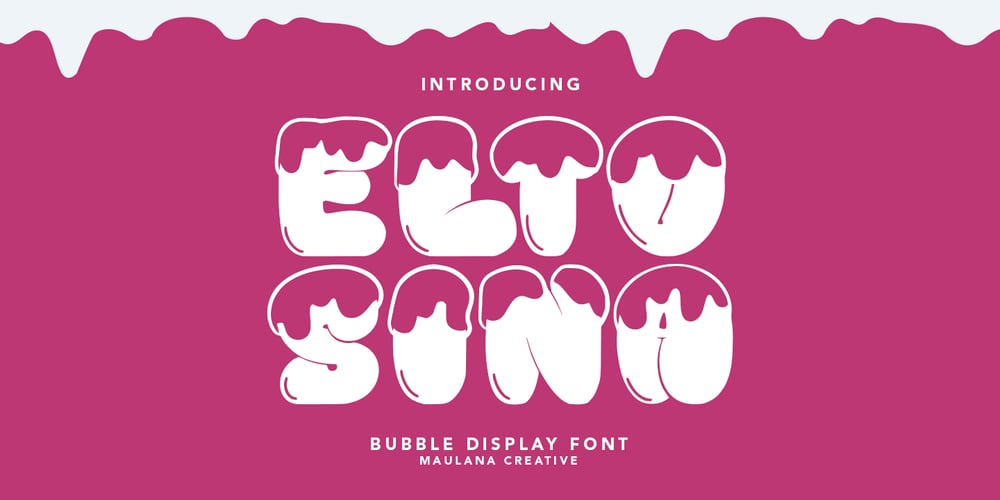
MC Eltosina Font Family was designed by Gilang Maulana and published by Maulana Creative. MC Eltosina contains 1 styles and family package options. Eltosina bubble display font. Bold stroke, fun character with a bit of ligatures and alternates. To give you an extra creative work. Eltosina bubble display font support multilingual more than 100+ language. This font is good for logo design, Social media, Movie Titles, Books Titles, a short text even a long text letter and good for your secondary text font with script or serif. Make a stunning work with Eltosina bubble display font. Cheers, Maulana Creative